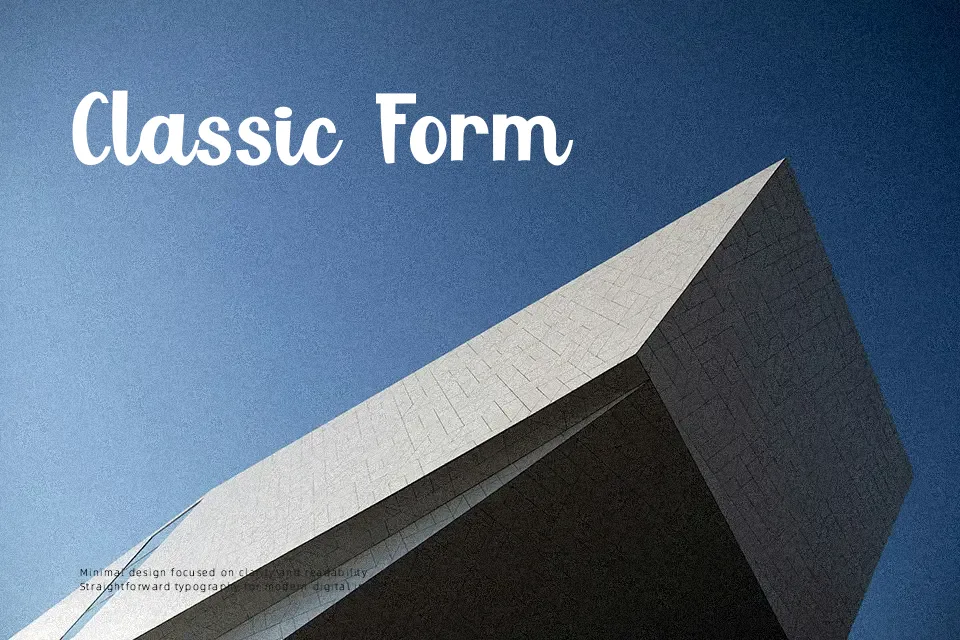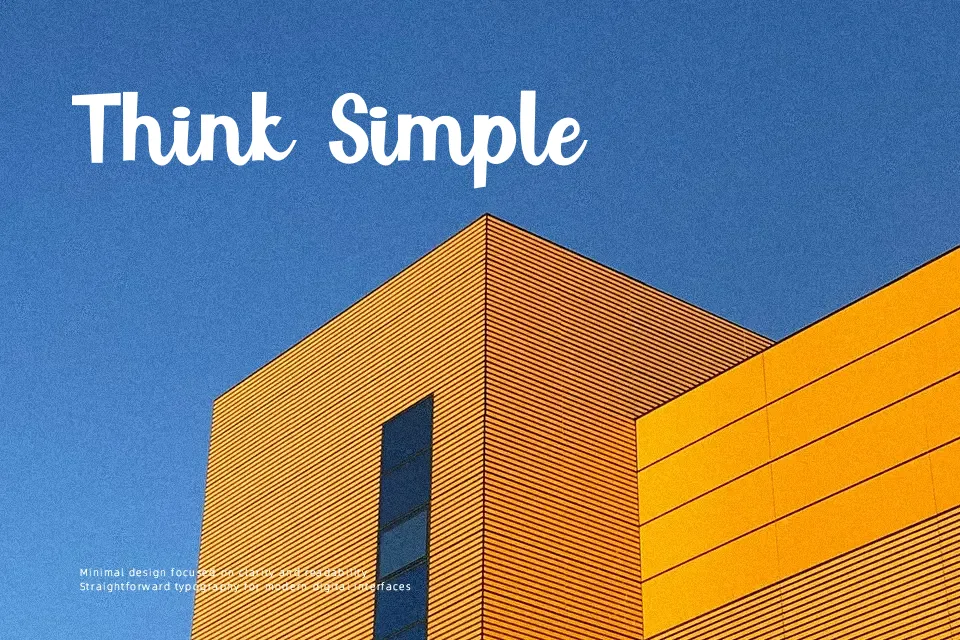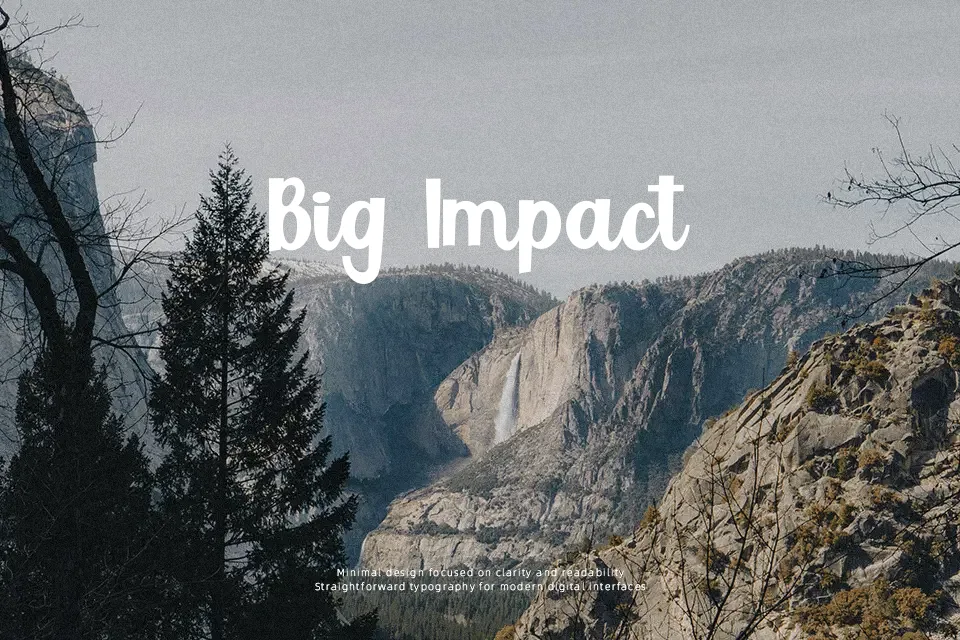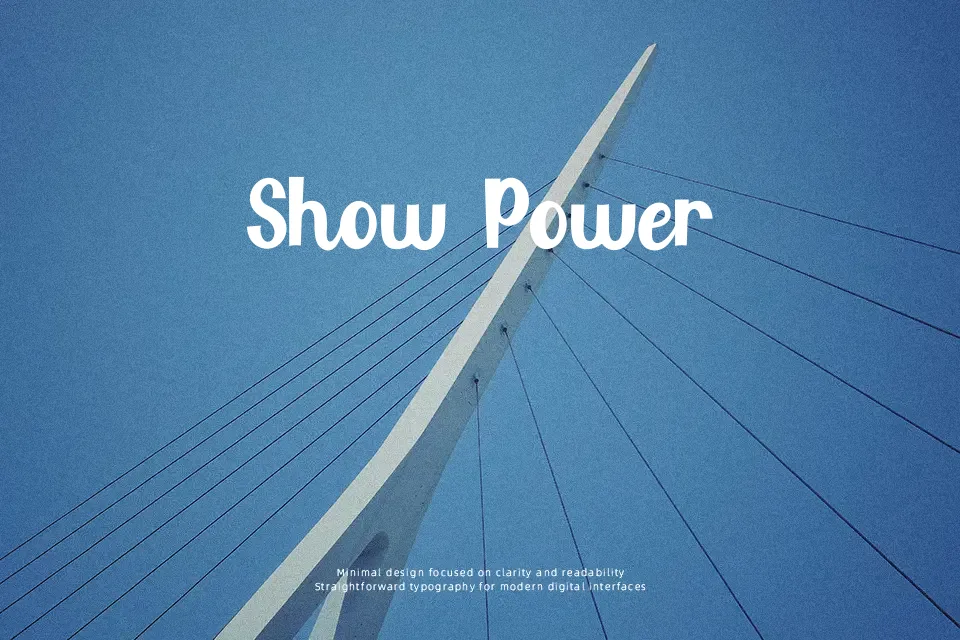
Polythem Font
Polythem Font presents a charming upright script aesthetic with organic, fluid strokes and well-defined vertical proportions. The letterforms combine smooth curvature with a moderate stroke contrast, establishing a friendly yet structured visual rhythm. Its balanced spacing helps maintain clarity in larger headlines, allowing the interconnected handwritten style to breathe comfortably across wide formats. The typeface works beautifully for boutique branding, cosmetic labels, and vibrant festival posters where a personal touch is essential. However, the decorative forms reduce continuous reading comfort, making it less suitable for lengthy editorial paragraphs. The slightly condensed uppercase characters pair naturally with the flowing lowercase glyphs, offering a cohesive and highly usable display typography solution.
boutique brand packaging
vibrant festival posters
cosmetic product labels
creative logo design
lengthy editorial paragraphs
spreadsheet data
Perfect for branding, logo, and packaging, with a creative and display style.